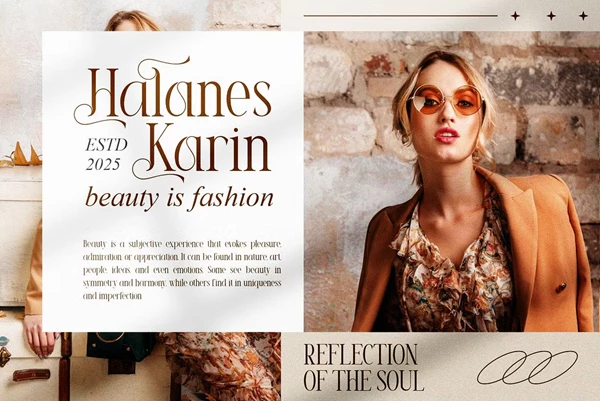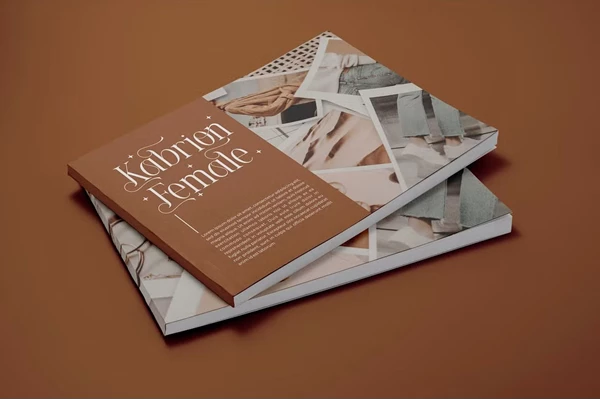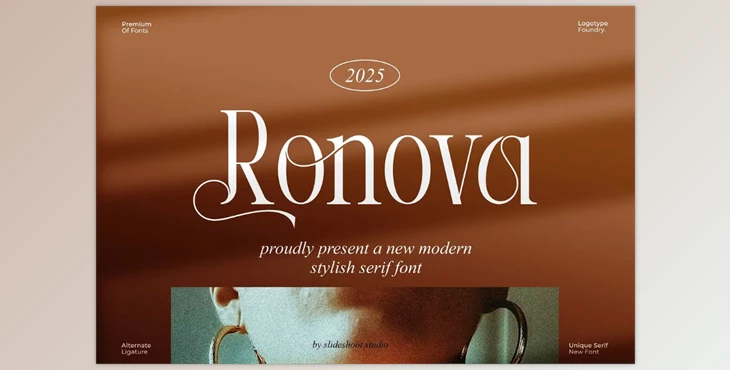
Ronova || Modern Serif Font:
Ronova Serif is an elegant font that is aimed at enhancing branding and logo design projects. Its graceful character makes this sophisticated serif typeface suitable for a wide range of applications including elegant invitation cards and business cards, distinctive logos, book covers, titles of films, and many more. Moreover, Ronova Serif has sleek lines and refined ligatures which infuse modernity into any creative work ensuring that the designs are striking and eye-catching.
This font supports Latin and Cyrillic alphabets along with their glyphs.
Some great features of Ronova || Modern Serif Font:
- Stylish ligatures design are included in this font
- Uppercase and lowercase letters included
- Full set of numerals and punctuation marks.